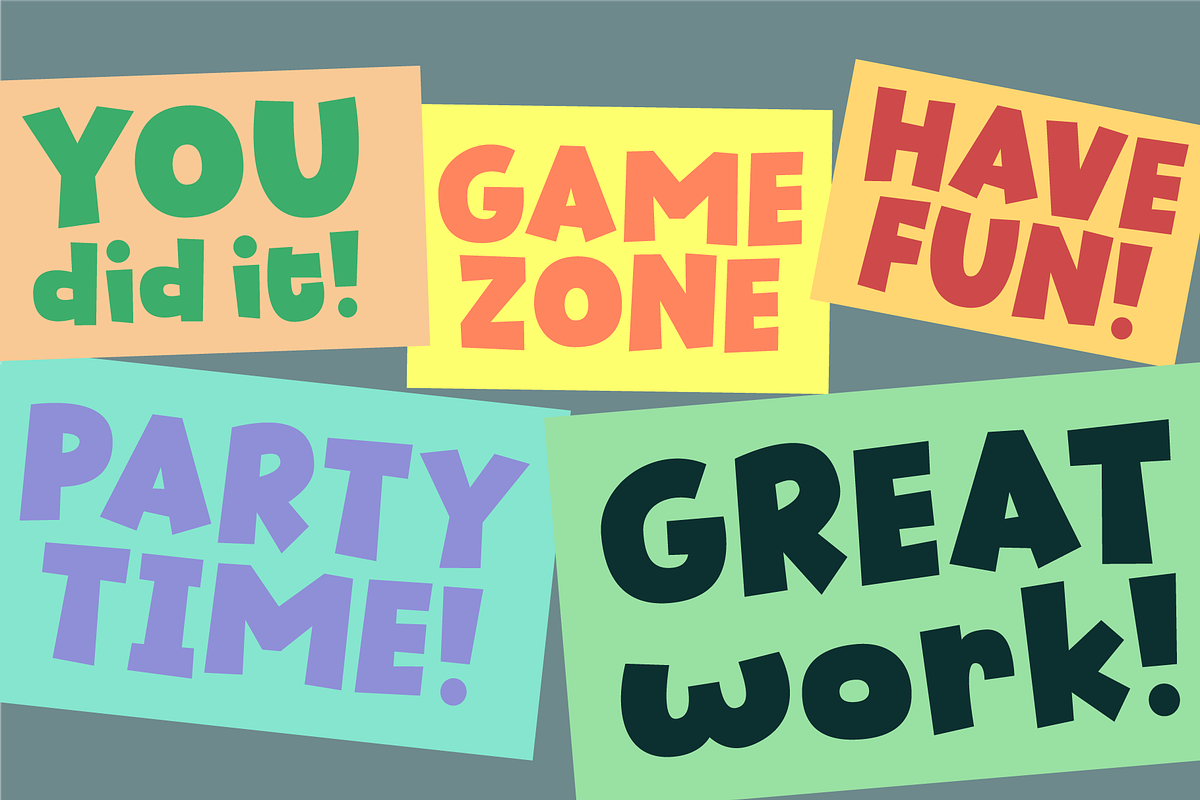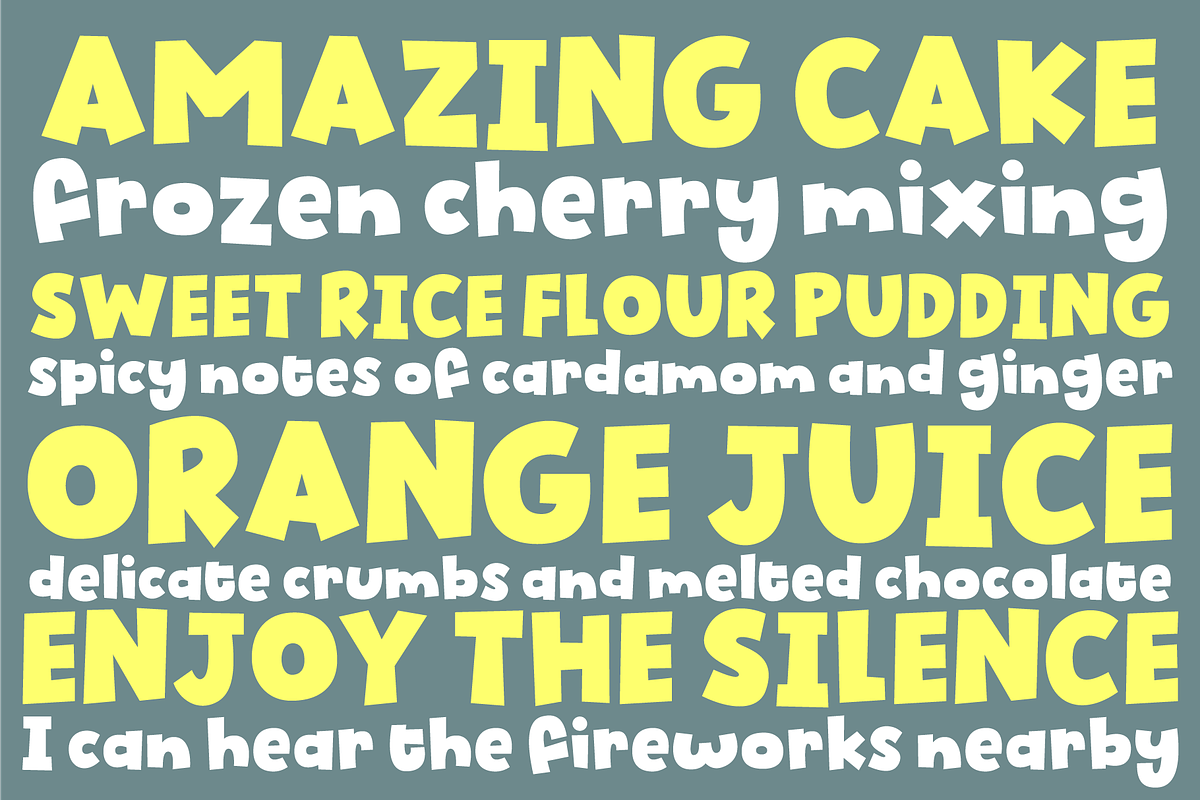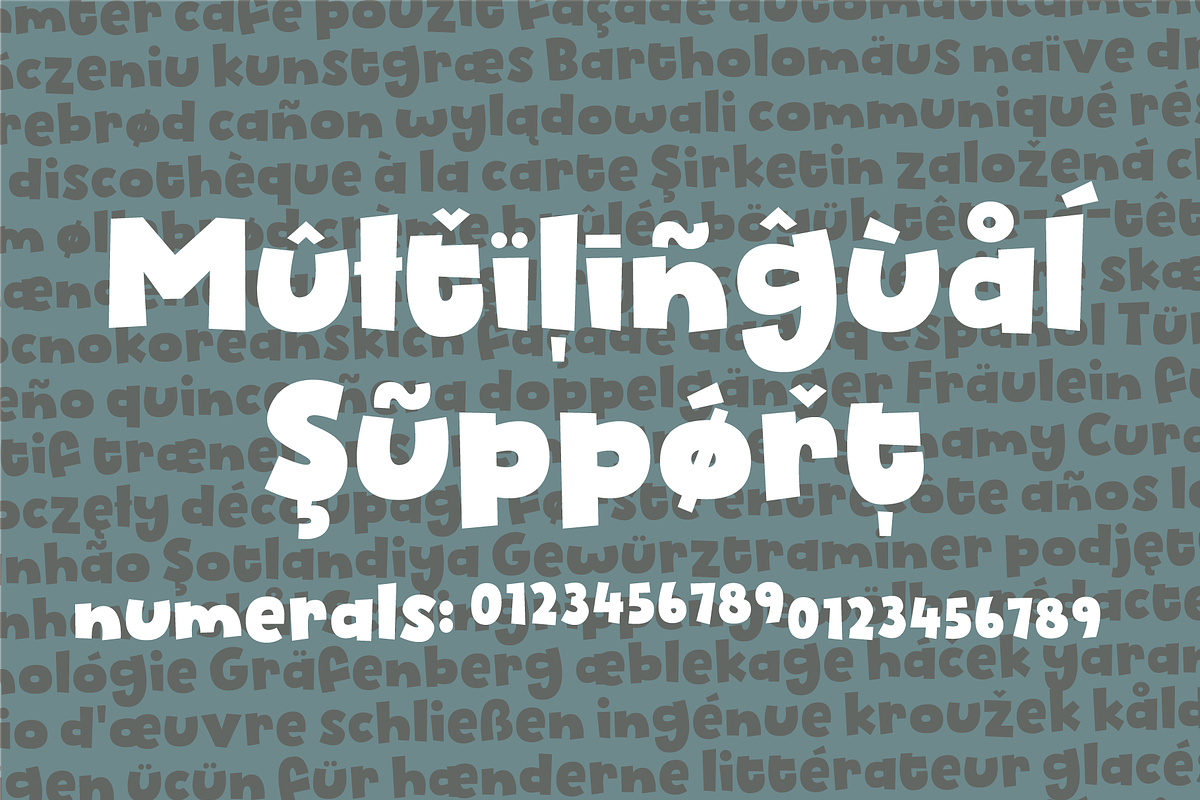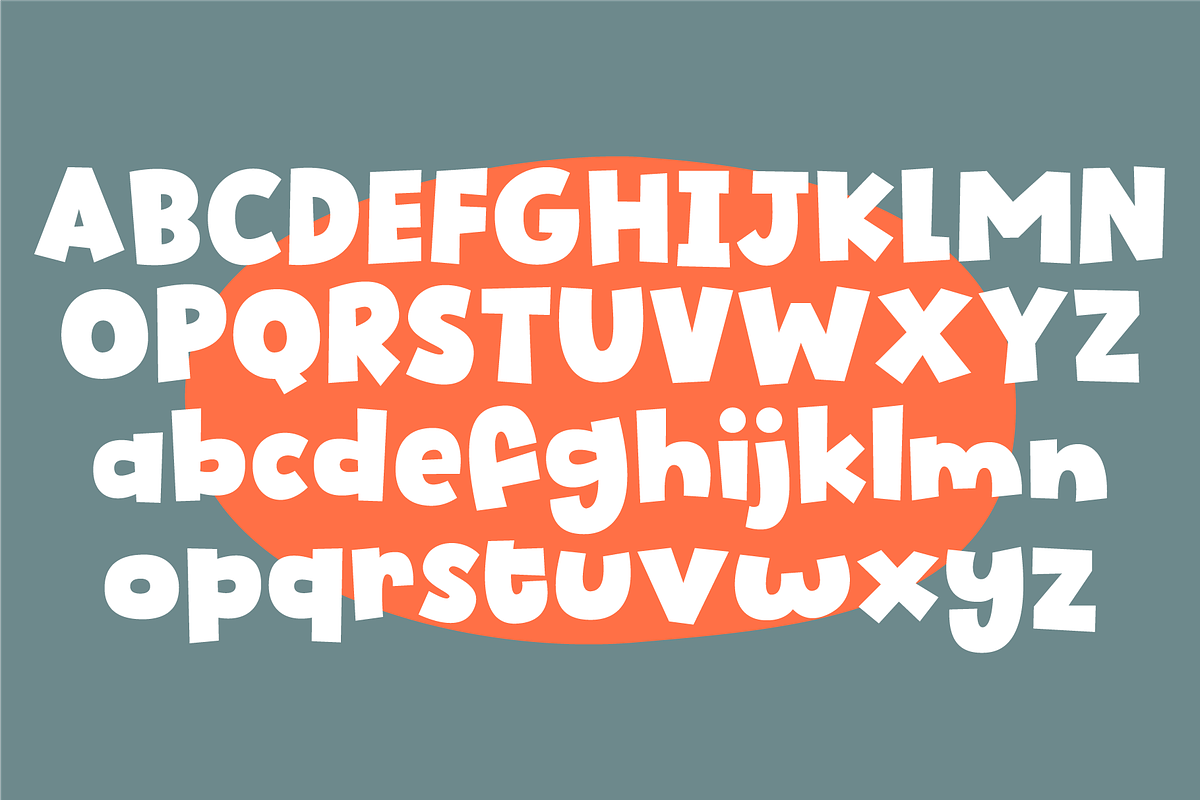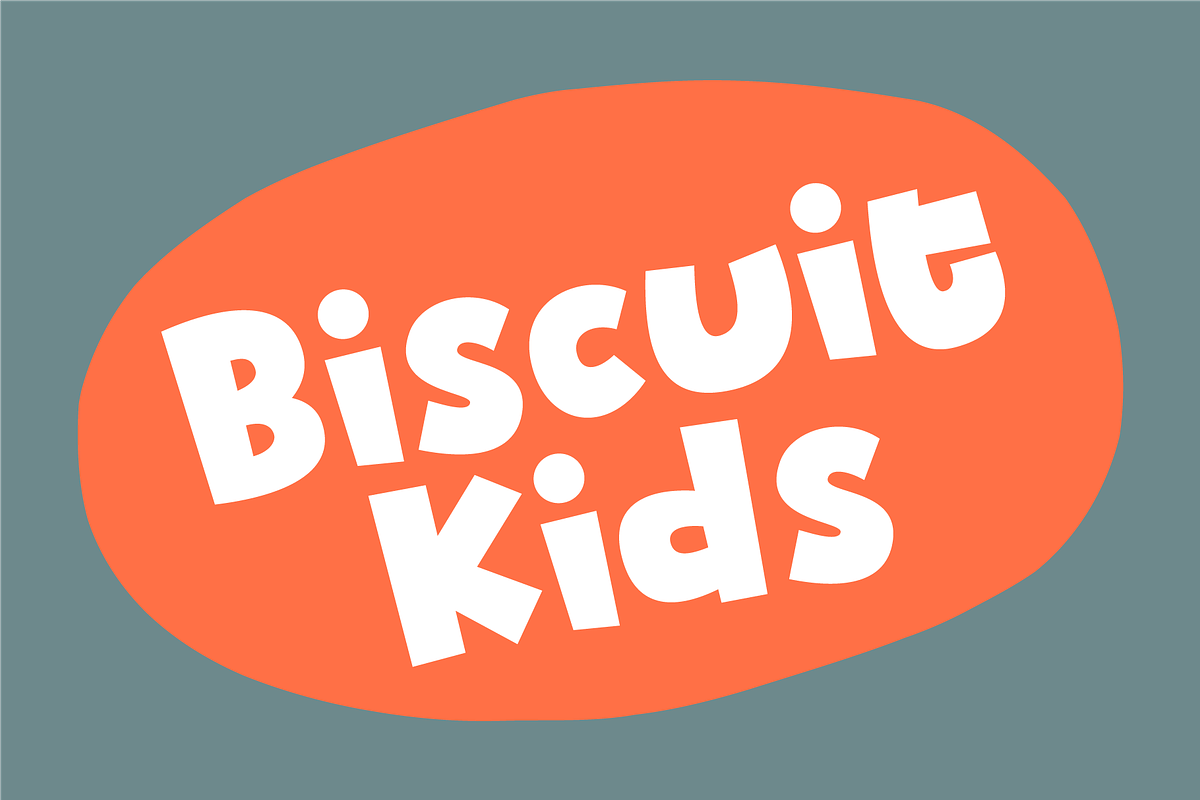
Biskuit Kids - tasty and chewy!
The other day, a couple of kids at work (I work as a kindergarten teacher!) played this game where they were detectives. Not the usual detective, but someone who worked for cookies and biscuits! They called themselves The Biscuit Kids, and I knew instantly that I had to make a font with that name! My Biscuit Kids font is a playful comic book font, but also suitable for anything that needs a fresh extra spicy attention!